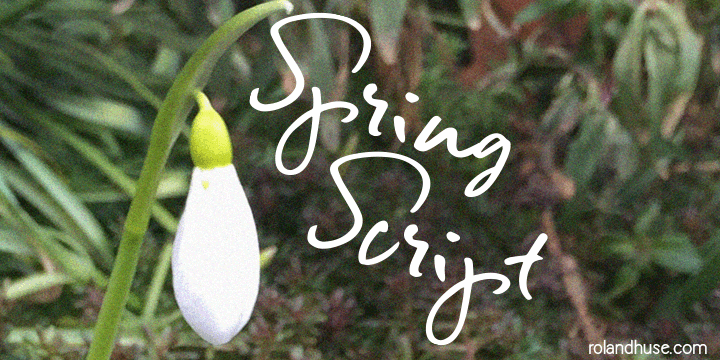
Free Spring Script Font
Introducing you to the absolutely beautiful free spring script font. Font Space has created this amazing and beautiful typeface. This is absolutely beautiful font so you can easily make world-class designs.